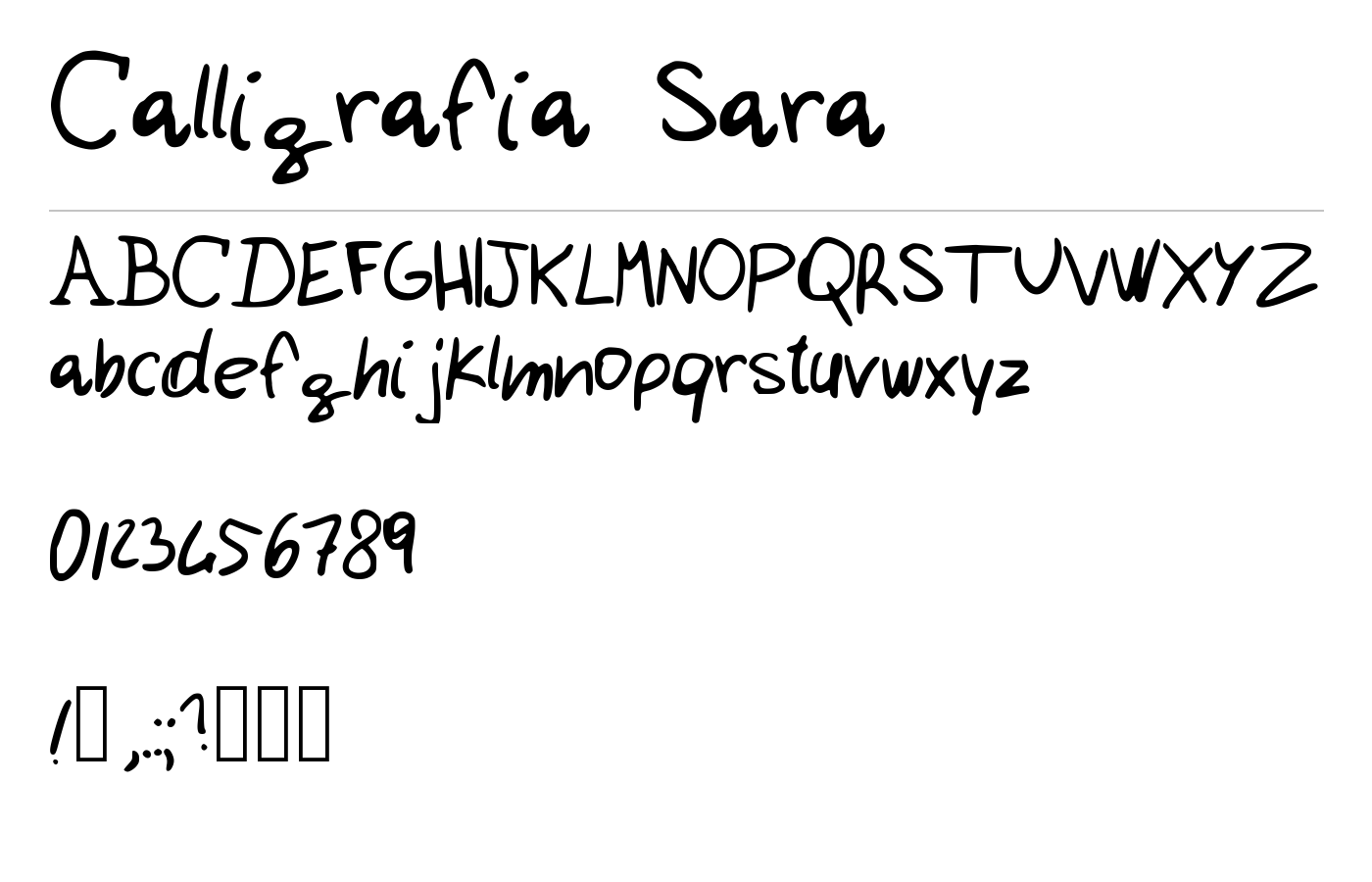
Calligrafia Sara is a casual handwritten font that combines a playful and informal style with good readability. Its uneven strokes and slightly irregular letterforms give it a personal and friendly feel, making it perfect for creative projects, personal branding, or inviting designs that aim to connect on a human level. This font works best for headlines, social media graphics, and packaging where warmth and approachability are key.
Calligrafia Sara Font
About Calligrafia Sara Font